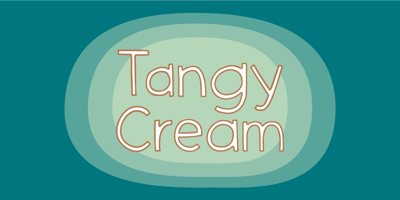
Tangy Cream Font Family was designed by Jakob Fischer and published by Bogstav. Tangy Cream contains 3 styles and family package options. Tangy Cream is handmade with a slightly geometric look. And to break the geometry, just a little bit, I have added 3 different versions of each lowercase letters. These automatically cycles as you type, leaving your text even more lively and organic looking!